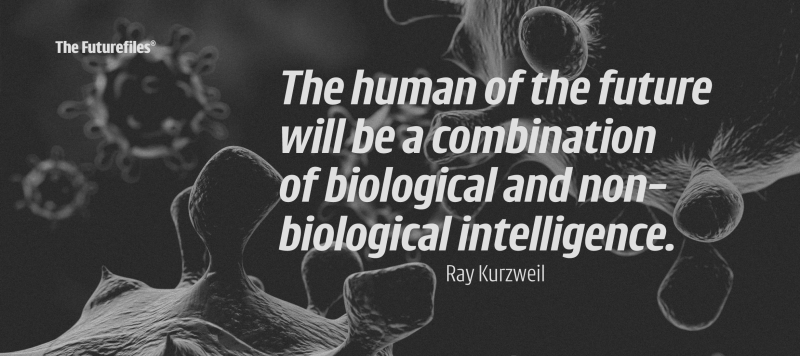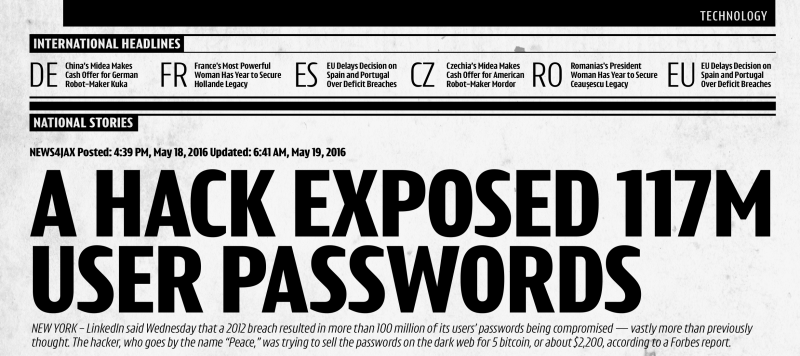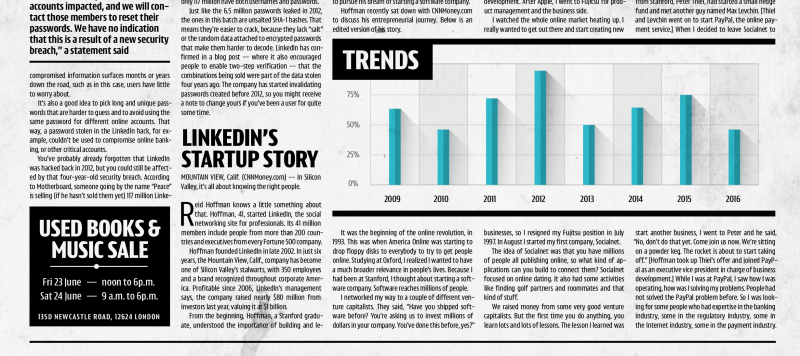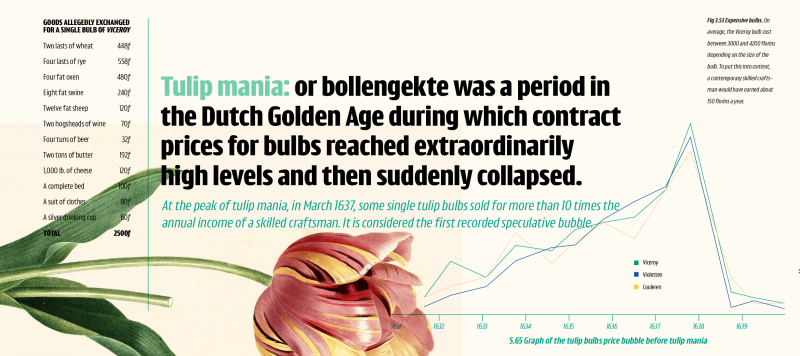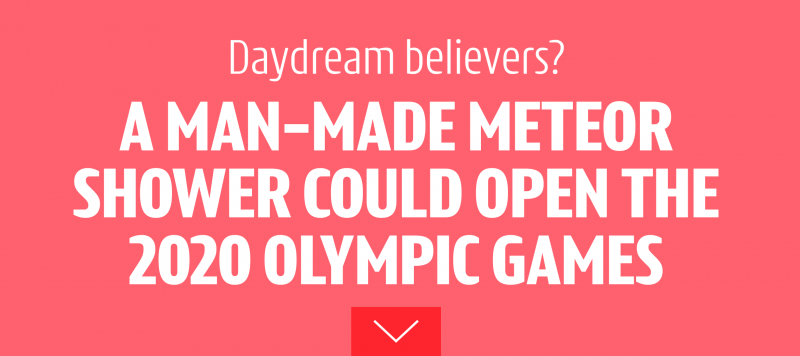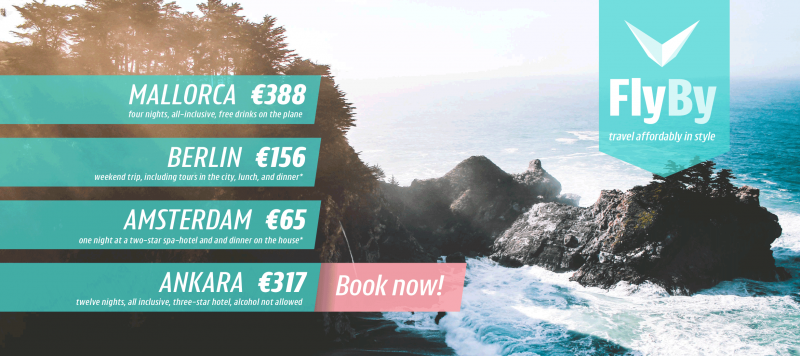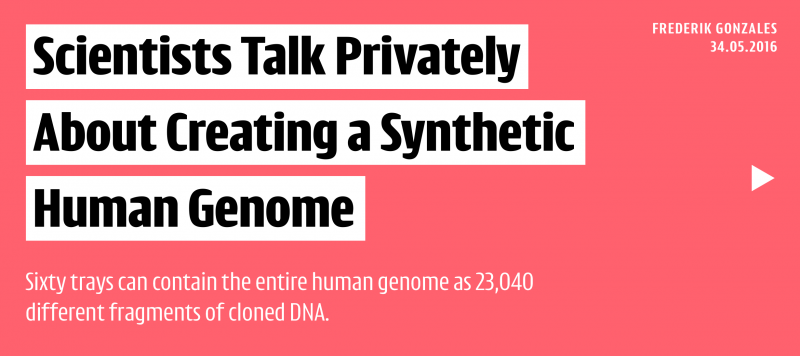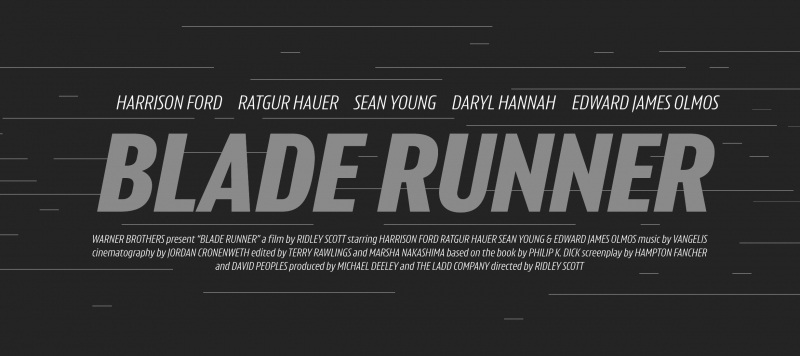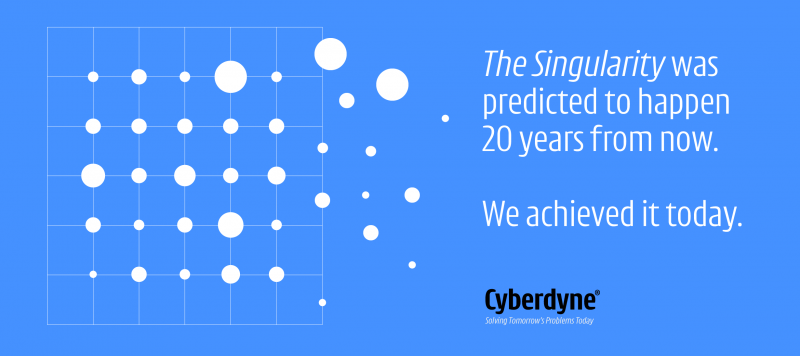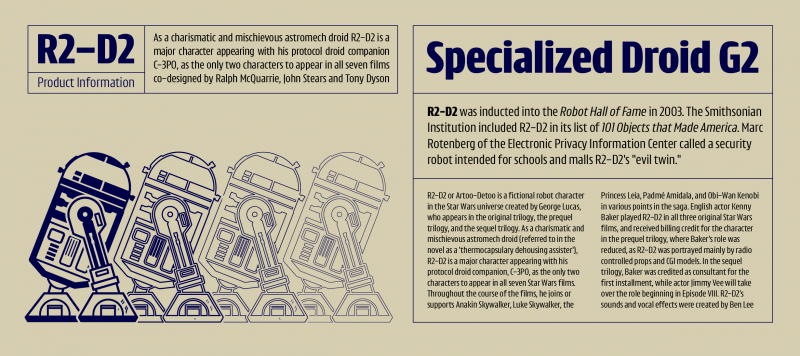
For a constructed sans, Intercom’s letterforms are quite open, which increases their legibility. The typeface is designed for newspaper headlines and other editorial or corporate identity projects. It features lowercase letters with a tall x-height, combined with very short ascenders and descenders to enable compact multi-line settings. Letterforms have visible stroke-contrast, and everything about the design is as streamlined as possible. There are 390 glyphs in each weight, and every font includes an alternate spurless form of the lowercase letter ‘r’.
Family Name | Intercom |
Designer(s) | Jérémie Hornus |
Classification | Display, Sans |